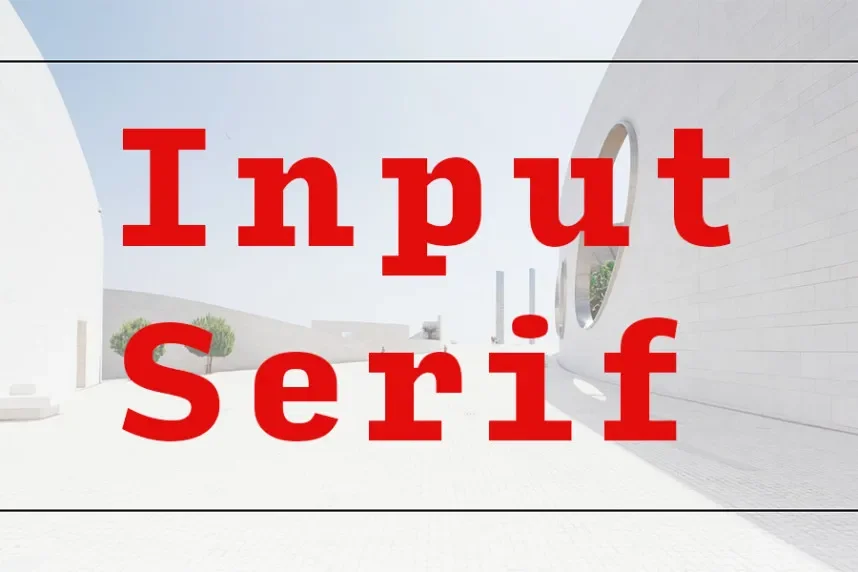
Input Serif Font is a serif typeface designed as part of the Input font family, known for consistency across serif, sans, and mono styles. It features moderate stroke contrast, open counters, and carefully balanced proportions. The letterforms are structured for clarity, making the font suitable for small sizes and dense layouts. Its design aligns well with UI design, technical publishing, and editorial systems where precision matters.